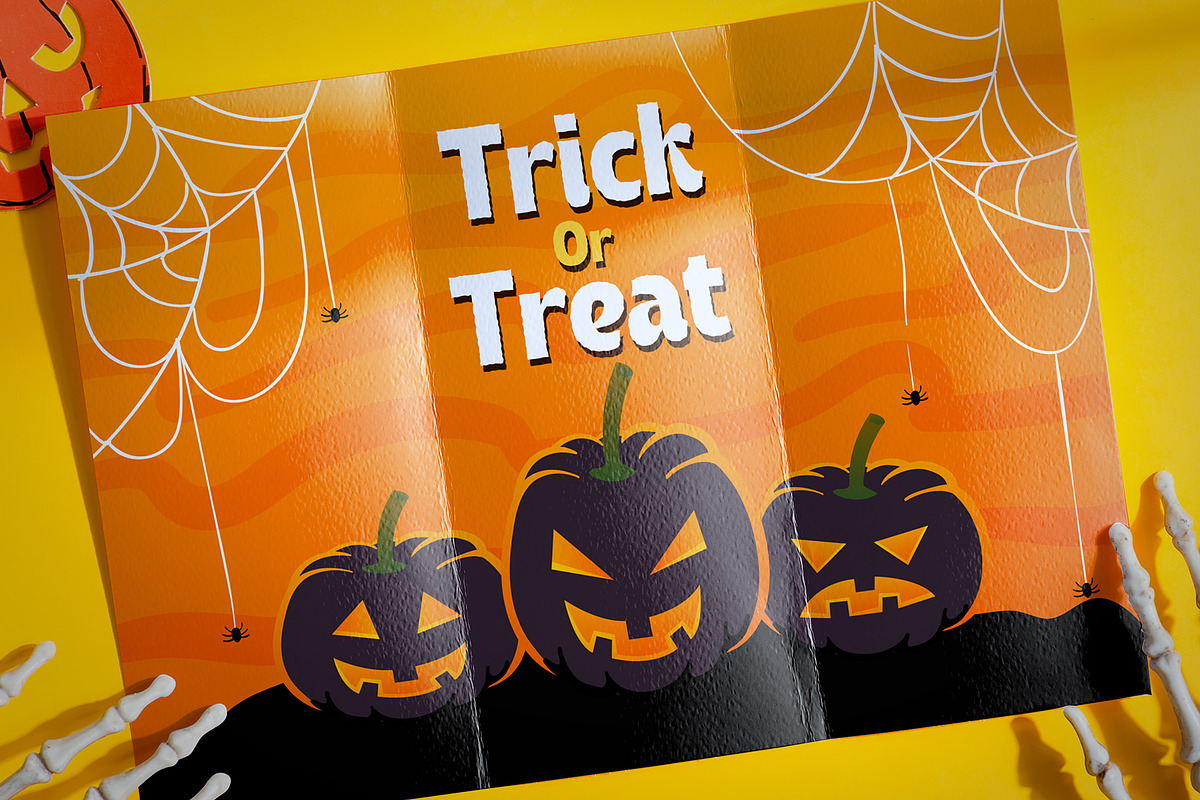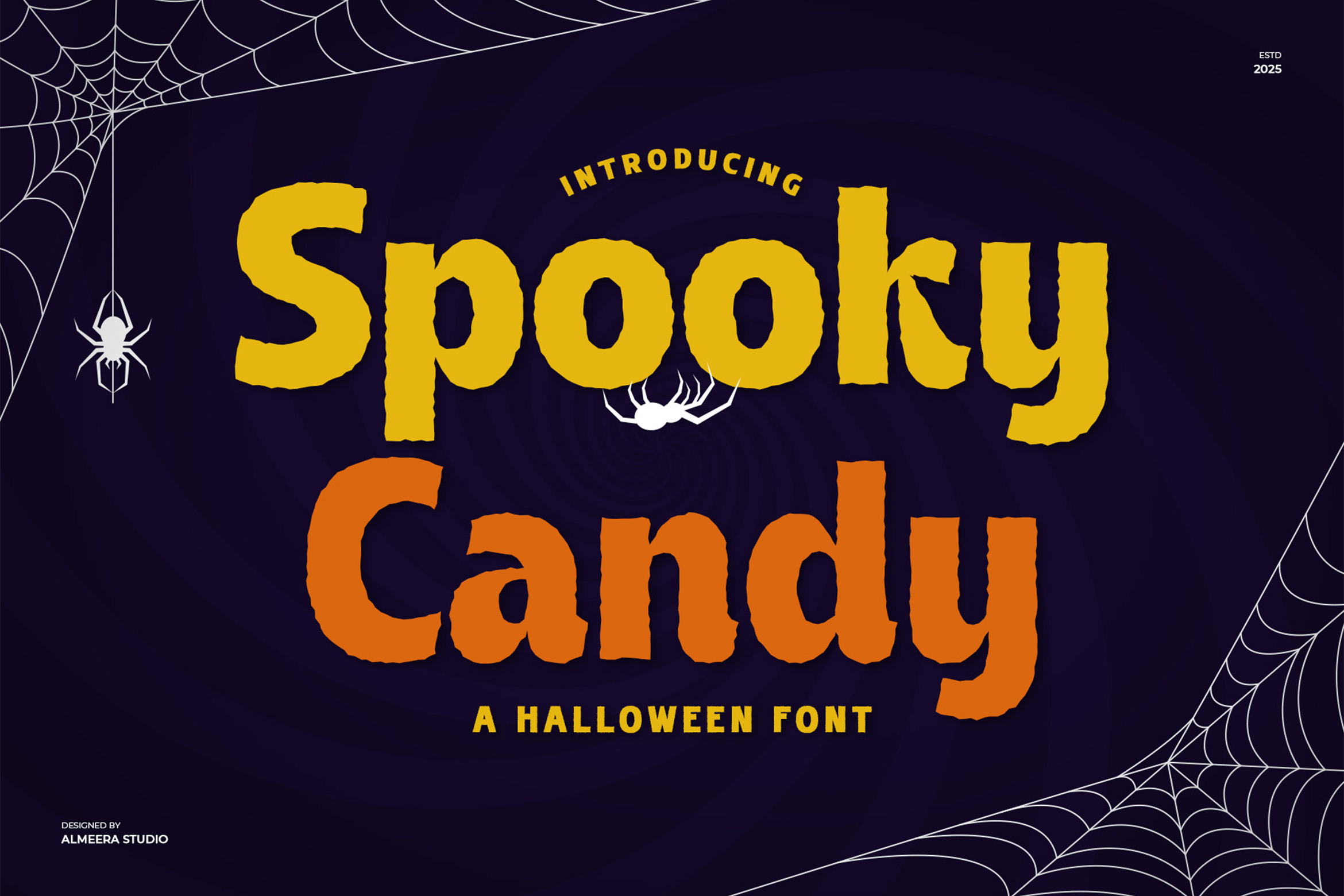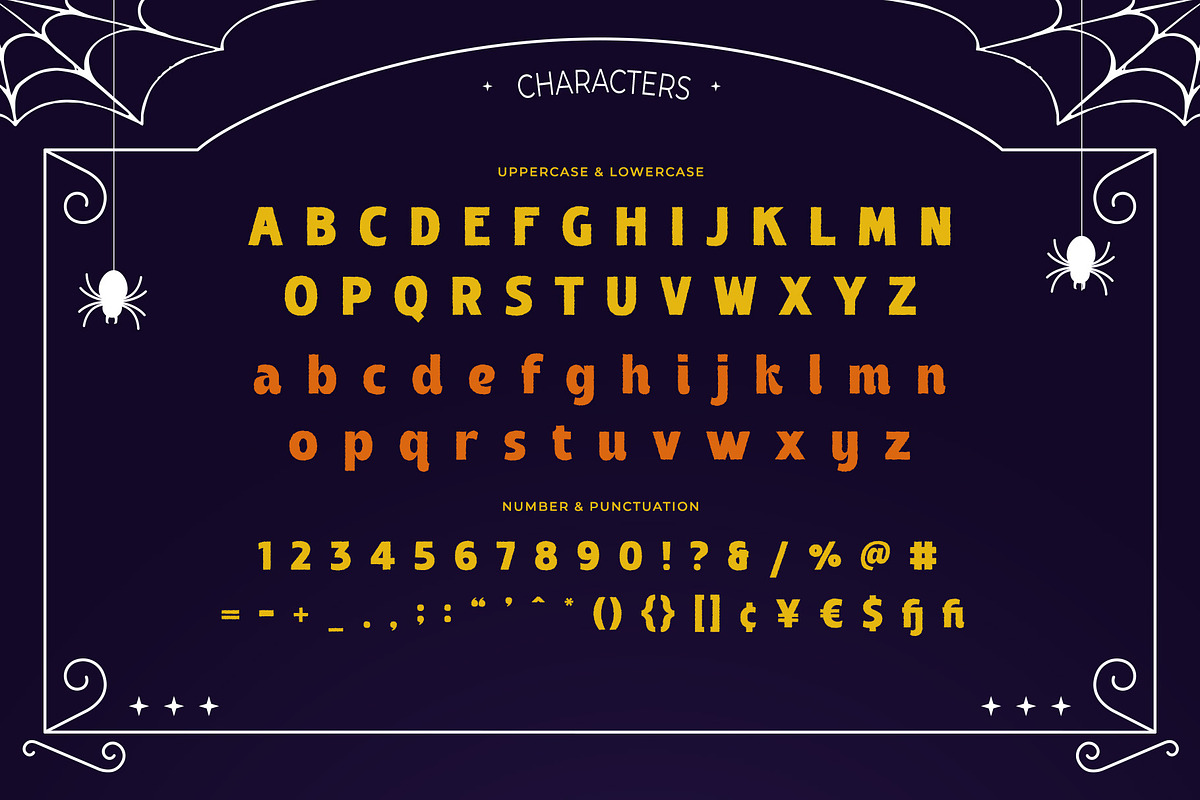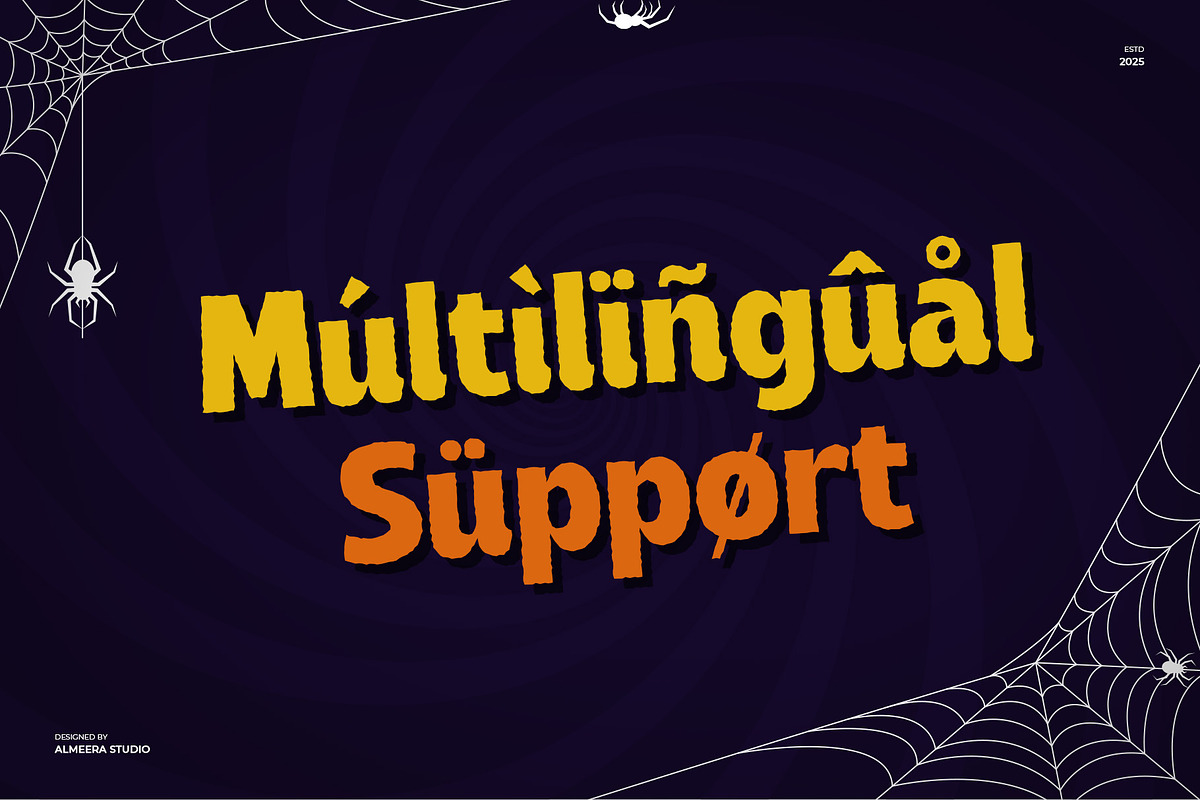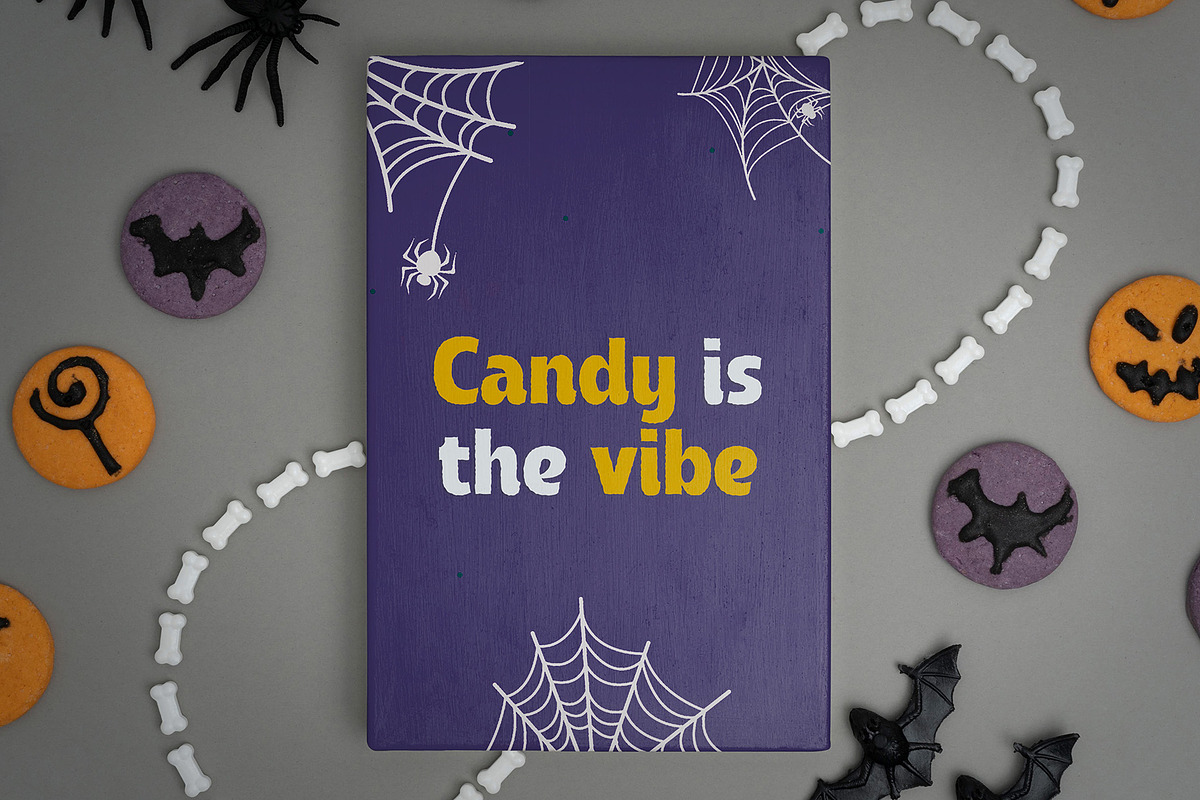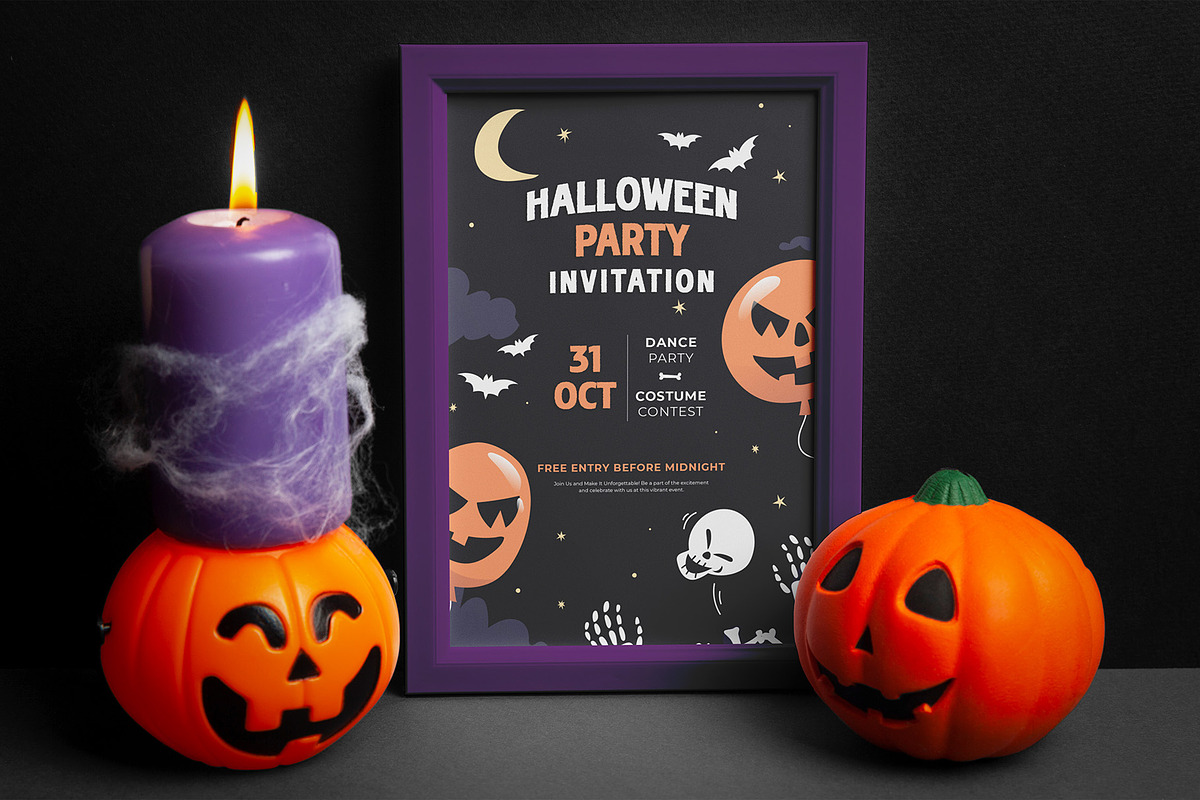
Spooky Candy – Halloween Font
Spooky Candy is a playful Halloween-themed font that strikes a perfect balance between eerie and sweet. Its hand-drawn look and irregular edges make it ideal for Halloween posters, party invites, kids’ books, or any spooky-themed designs. Friendly yet mysterious, it captures the spirit of fun and fright.